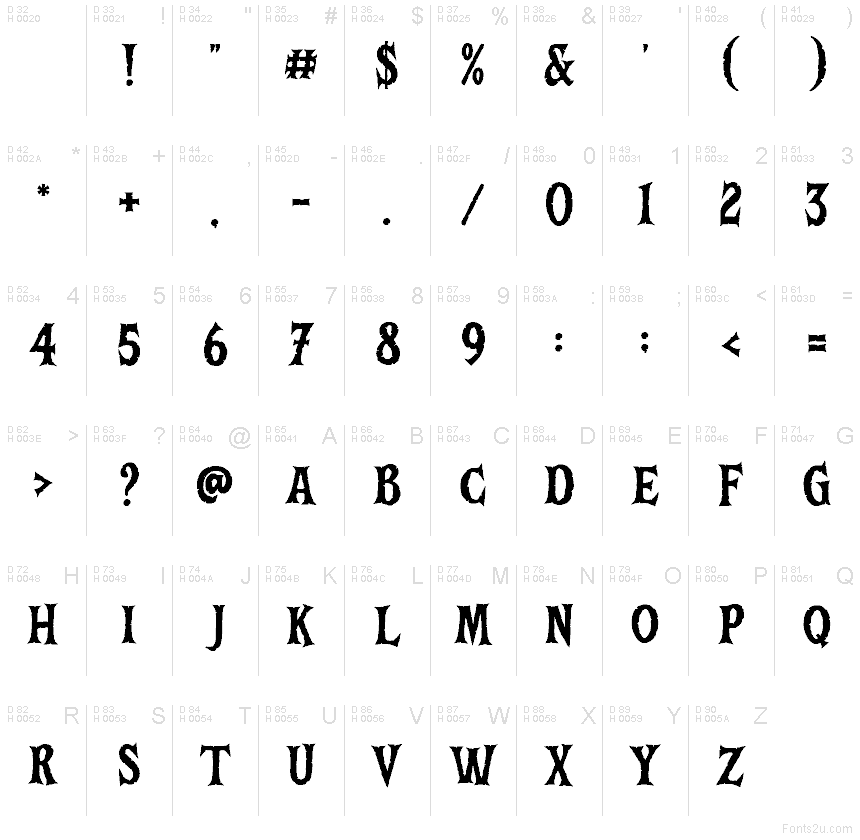
Death Bones Regular
Death Bones font by Blankids is a free eroded Halloween display font. Jagged strokes, splintered edges, and thorny flare serifs give each letter a gnawed, graveyard-weathered feel—like woodcut posters pulled from a damp crypt. It’s loud, gritty, and born to scream in big sizes without losing that crunchy, hand-cut texture.
Using Death Bones, you can nail haunted house posters, spooky party invitations, trick-or-treat signage, horror film titles, escape-room branding, seasonal packaging, and streamer overlays for fright nights. This free font thrives at headline scale with roomy tracking. Pair it with a clean condensed sans for body copy to keep the chaos readable.